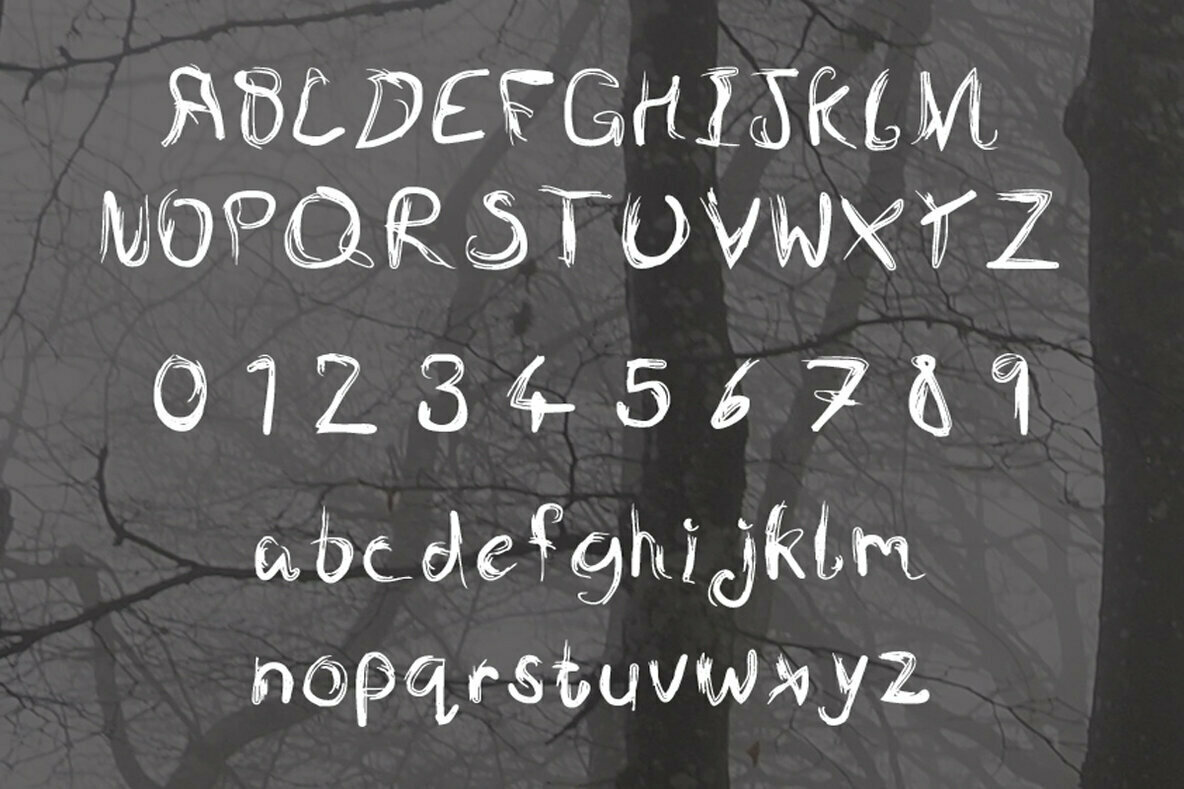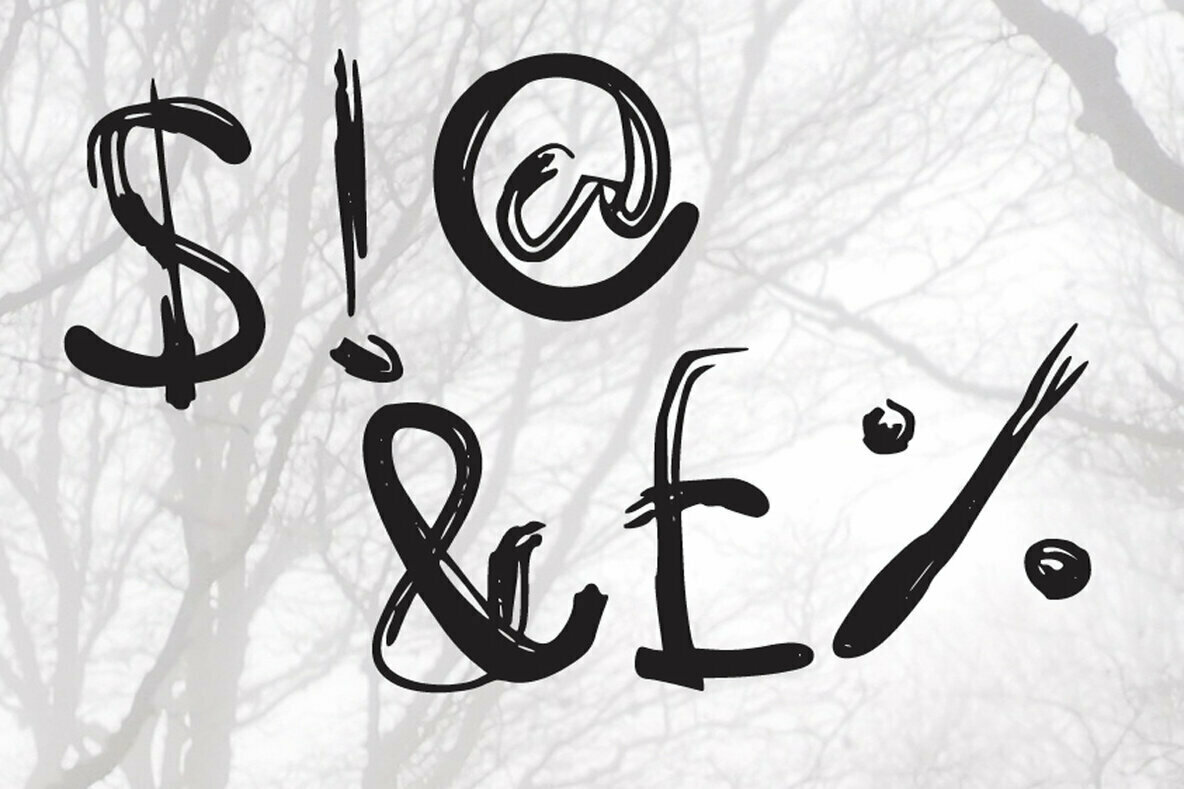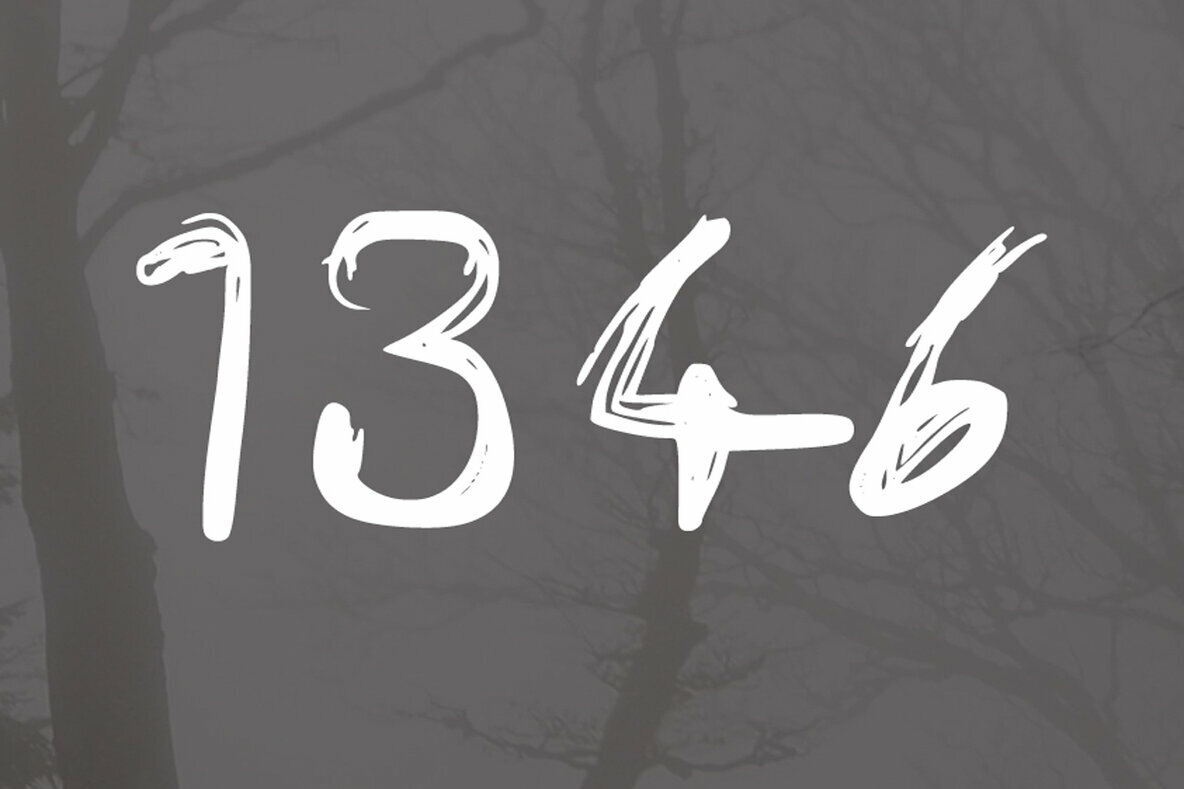
Haunted Tree: Eerie Font for Haunting Designs
Haunted Tree draws inspiration from the gnarled limbs of ancient trees, evoking an atmosphere of suspense and mystery. Ideal for horror and Halloween-themed projects, this font brings a distinctively spooky edge that captivates and intrigues.
• Mood-enhancing Appearance – Perfectly complements dark and eerie themes.
• Distinctive Design – Twisted branches create a unique aesthetic.